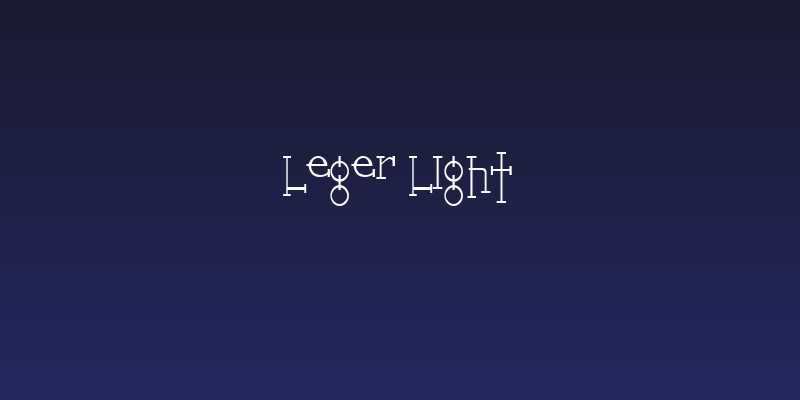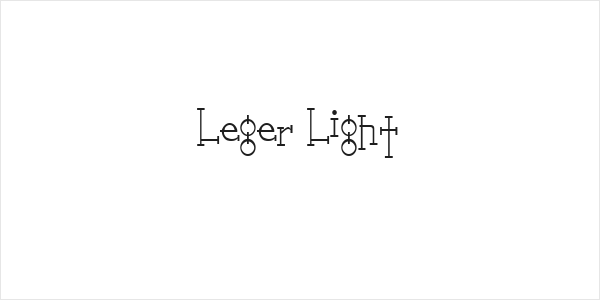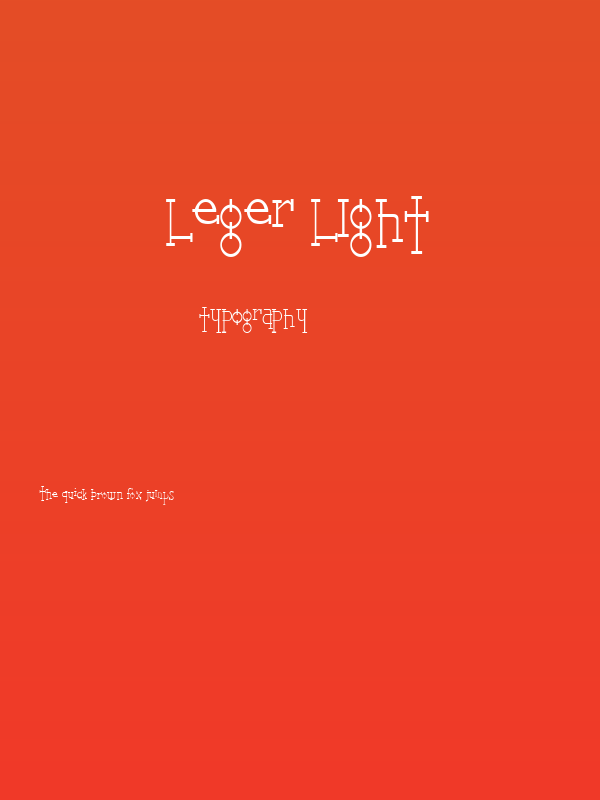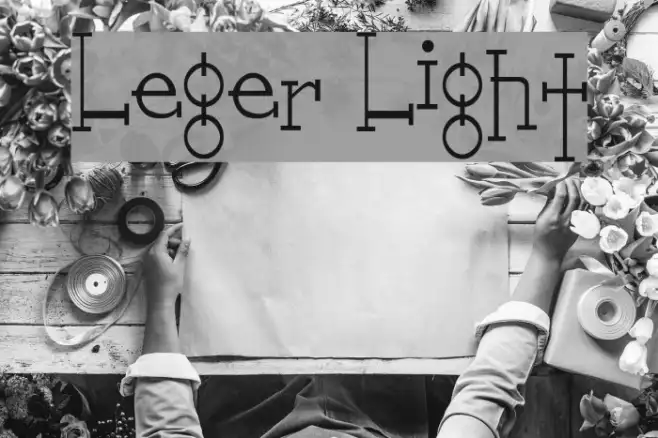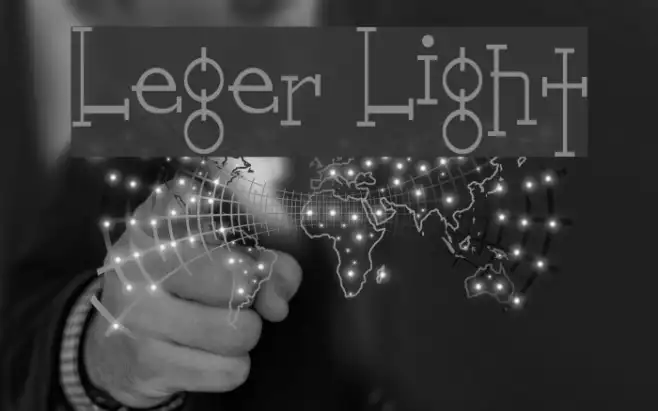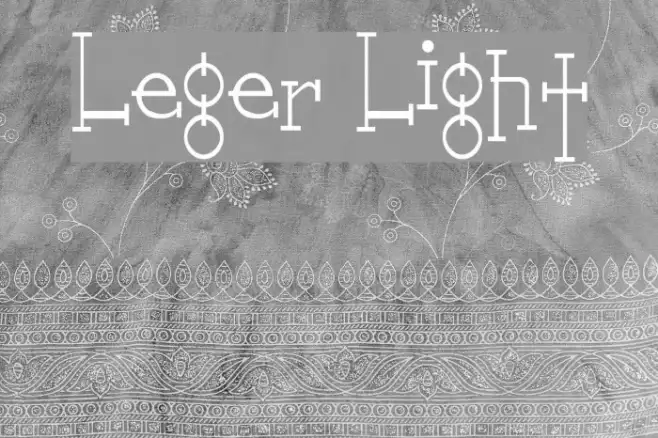
Leger Light Font
Leger Light Description
This font features a unique and artistic design with a modern twist. The characters are constructed with thin, consistent strokes that create a sense of elegance and sophistication. Each letter is crafted with a geometric precision, incorporating circular and linear elements that give it a distinctive appearance. The uppercase and lowercase letters maintain a uniform style, while the numerals and special characters blend seamlessly with the overall design. This font's intricate details and balanced proportions make it suitable for creative and contemporary projects.
| Use Case | Logos, Posters, Branding |
| Proposed Projects | Ideal for branding, logos, posters, and modern art projects. |